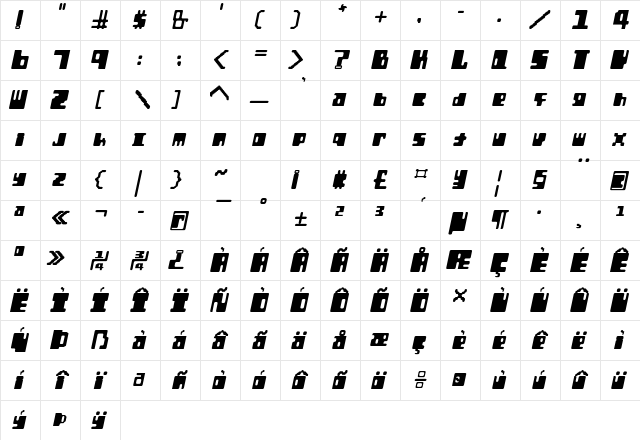
Orthotopes Italic
Design Context for Orthotopes Typeface
Orthotopes is a composed and adaptable typeface that performs quietly and consistently across a wide range of design contexts. The dynamic lean of this cut emphasises speed and emphasis in any layout.
Pro Tip: Use Orthotopes for emphasis, pull quotes, and subheadings where its slanted energy can add rhythm to the layout.